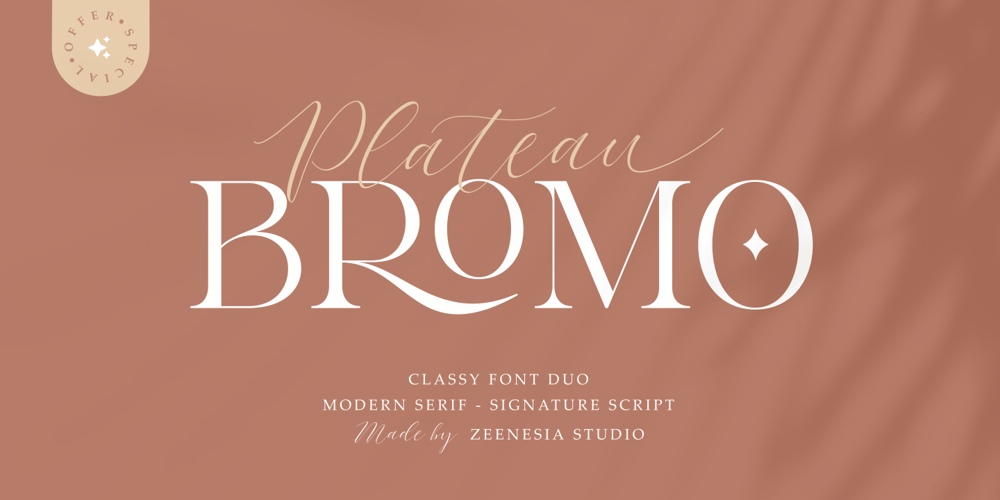
Bromo Plateau Font Family was designed by Zeenesia Studio and published by Zeenesia Studio. Bromo Plateau contains 2 styles and family package options. BROMO PLATEAU – PAIRING FONT DUOIntroducing Bromo Plateau Font Duo. The Bromo Plateau is a classy font duo that includes a serif typeface and signature script, suitable for your design project business, like logo branding, wedding invitation, typhography wedding, quotes text, magazine, or anything do you want. I created more than 80 stylistic alternates and much natural ligatures to make this font very classy and look so beauty. Bromo Plateau was built with openType features make your project wil be perfect.